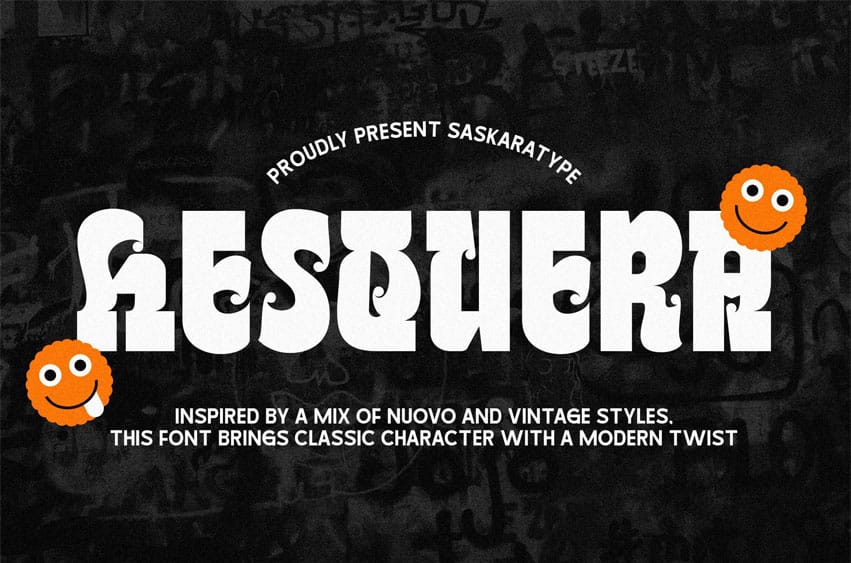
Hesquera Font is a sophisticated display typeface that harmoniously blends the expressive elegance of Nuovo style with the timeless character of vintage design. Its graceful curves, stylish high-contrast strokes, and subtly ornate details give it a distinctive personality, both modern and nostalgic.
Inspired by classic European typography and the flowing forms of Art Nouveau, Hesquera brings a sense of artistic refinement while maintaining strong readability. It’s ideal for a wide range of creative applications, including:
• Editorial headlines • Luxury branding and packaging • Wedding or invitation design • Boutique logos and signage • Posters with artistic or classical themes
With its elegant rhythm and vintage soul, Hesquera is crafted for designers seeking a font that speaks with style, grace, and a touch of timeless charm.